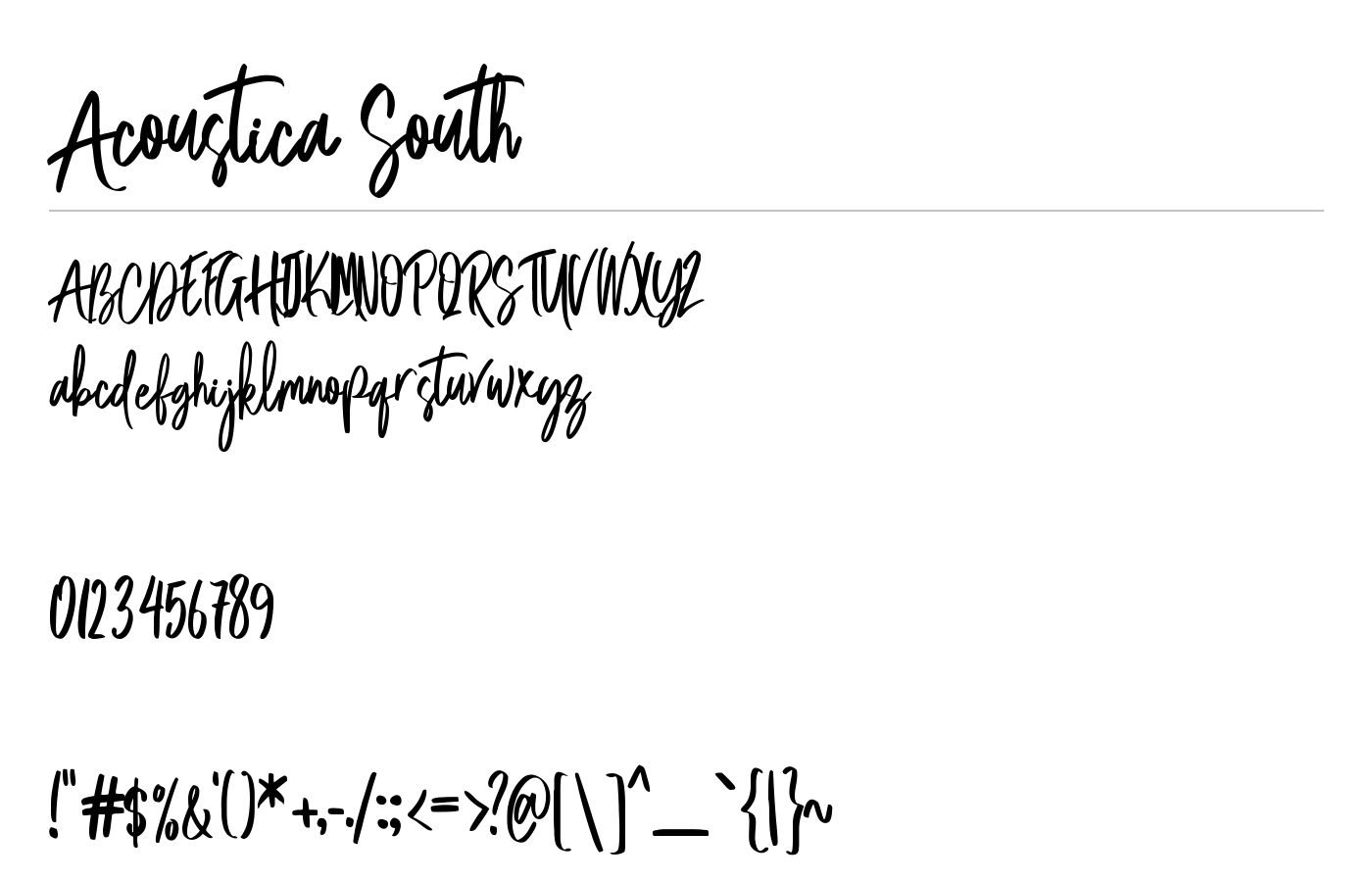
Acoustica South is a lively, handwritten script font with a natural, casual flow that feels both personal and expressive. Its tall, slightly condensed letterforms and varied stroke thicknesses create an energetic and modern look, making it perfect for creative projects, branding, and invitations where a friendly yet stylish tone is desired. This font works well for logos, social media graphics, and packaging that benefit from a unique, handcrafted feel.
Acoustica South Font
About Acoustica South Font
| Font family | Acoustica South Font |
| Designer | Burhan Afif |